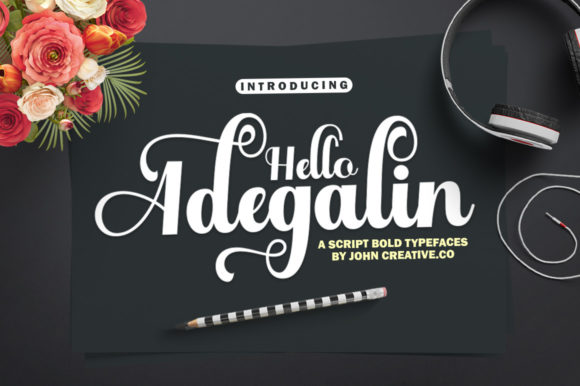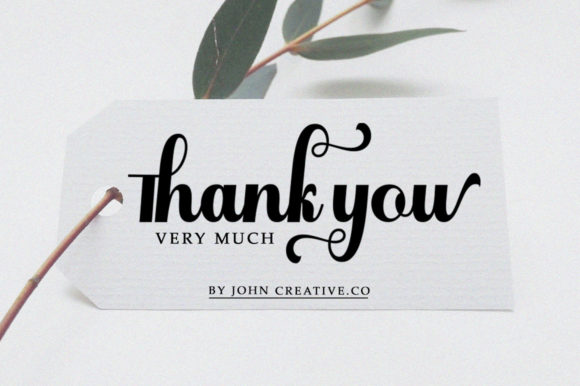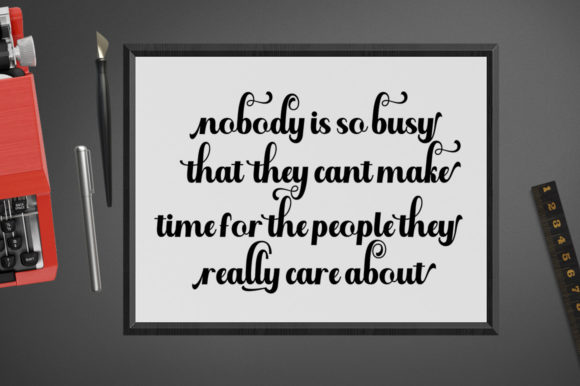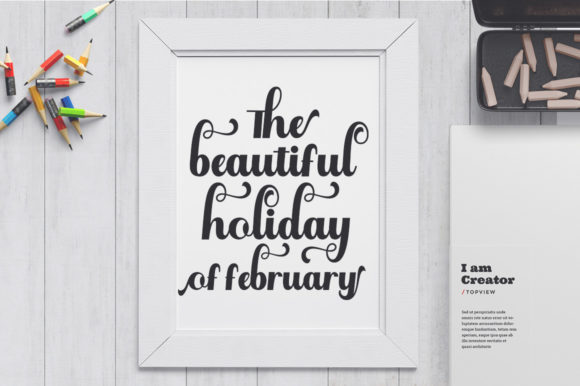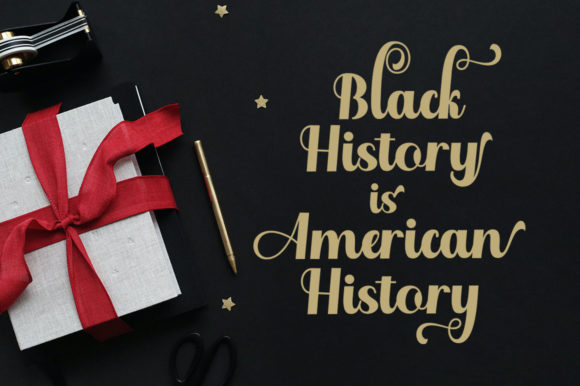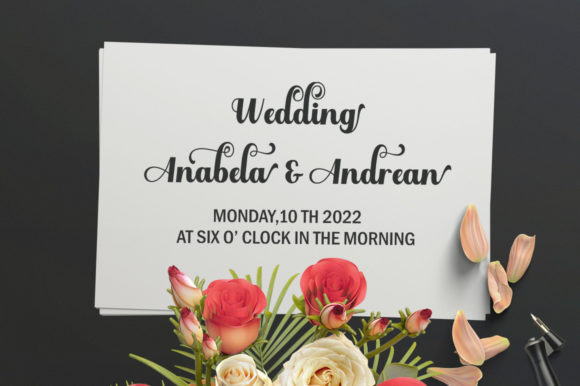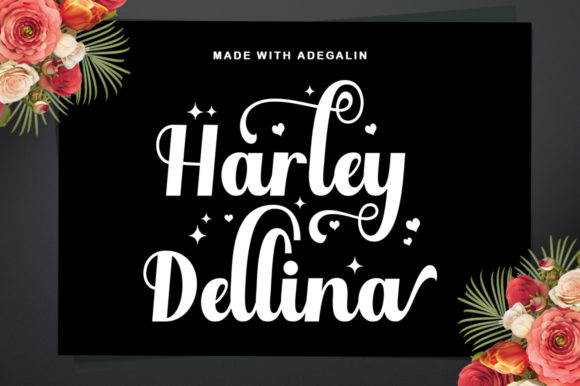
Hello Adegalin Font
About Hello Adegalin Font
Hello Adegalin is a sophisticated handwritten font that’s great for delivering any message with confidence, authenticity and charm. It will elevate a wide range of crafting ideas, from cards, to branding, labels and much more.